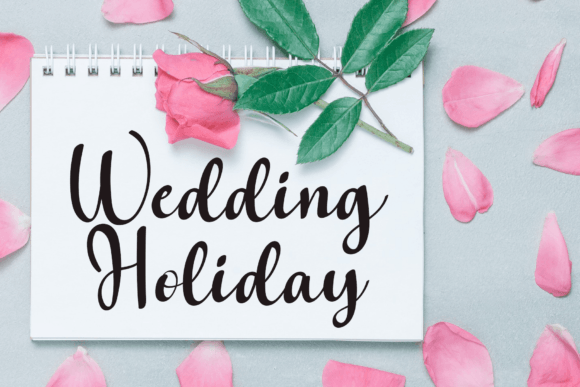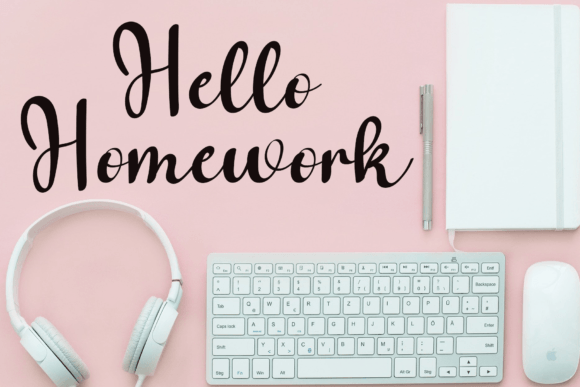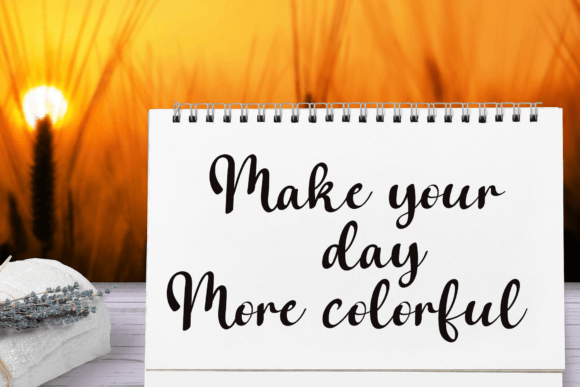
About Yellow Gold Font
“Yellow Gold” is a fancy handwritten font designed to inspire extra creativity in your projects. With its unique and stylish aesthetic, this font is well-suited for various applications, including logo design, social media graphics, movie titles, and book titles. It serves as a tool to elevate your work, allowing you to create stunning and visually impactful designs with its distinct and fancy style.
The handwritten and fancy elements of Yellow Gold contribute to its artistic and creative vibe, making it a versatile choice for different design purposes. Whether you’re aiming for an elegant look, a modern feel, or an overall aesthetic that stands out, this font provides the means to achieve visually captivating results.
In the realm of logo design, Yellow Gold becomes a valuable asset to represent your brand or project with flair and creativity. Its handwritten charm adds a unique and captivating element that helps your logo leave a memorable impact. The fancy style brings an extra layer of creativity, making your brand stand out in the crowded marketplace.
For social media, Yellow Gold is a powerful tool for crafting engaging and shareable graphics. Whether you’re designing posts, banners, or promotional material, the font’s fancy and creative elements enhance the overall aesthetic, making your content more visually appealing to your audience.
In the world of movies, Yellow Gold can contribute to creating memorable and captivating titles. Its fancy and stylish design can set the tone for the entire film, adding an extra layer of intrigue and anticipation. The handwritten touch brings a personal and expressive quality to the movie titles.
In book titles, Yellow Gold adds a touch of elegance and creativity. Whether you’re working on a novel, a self-help book, or any other genre, the font’s unique style contributes to the overall theme and tone of the book. It becomes an essential element in making your book visually appealing and enticing to potential readers.
In summary, Yellow Gold is more than just a font; it’s a creative tool that adds a fancy and handwritten flair to your designs. Let Yellow Gold be the choice that enhances your logo, social media graphics, movie titles, and book titles, allowing you to create stunning and visually captivating work with an extra touch of creativity.